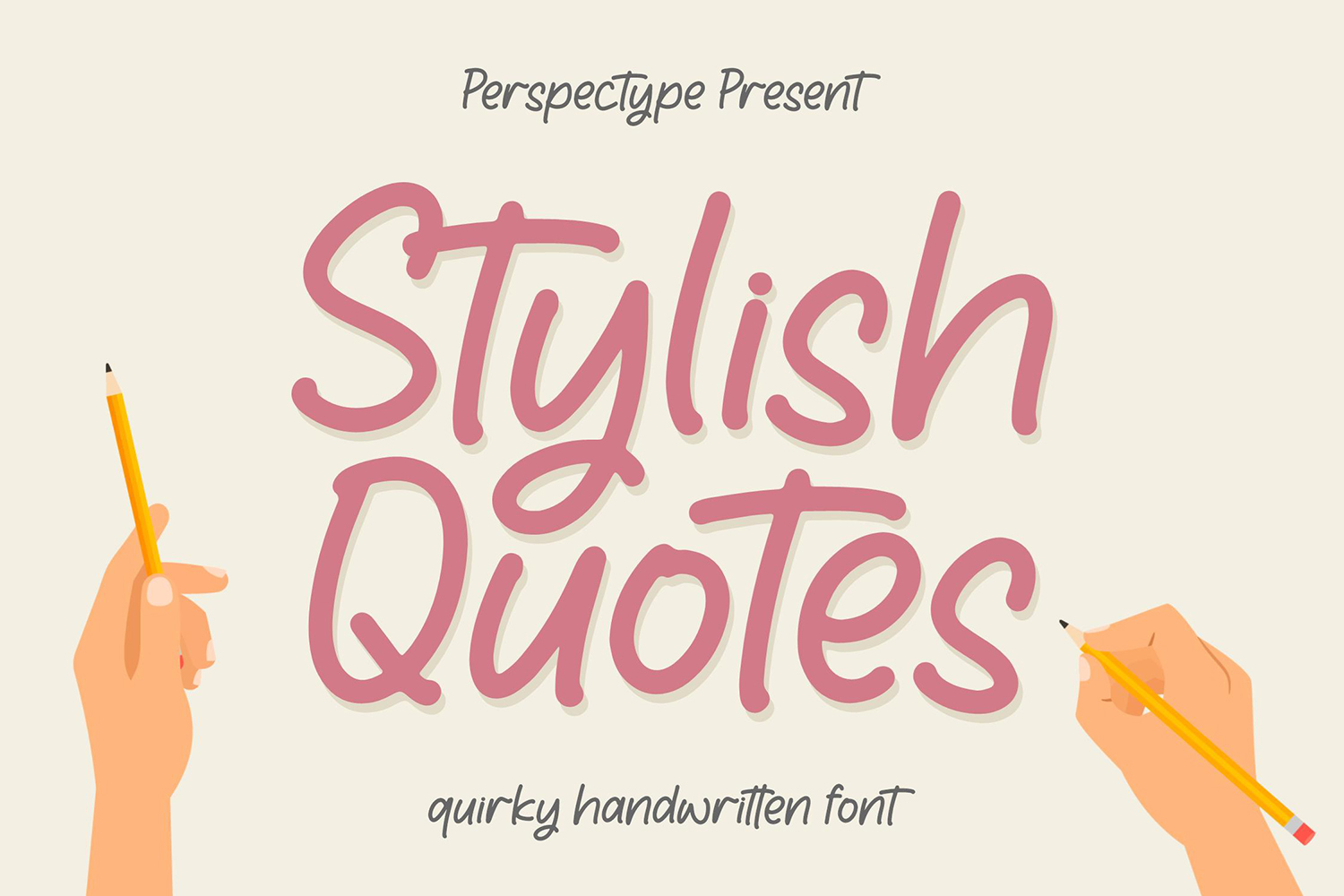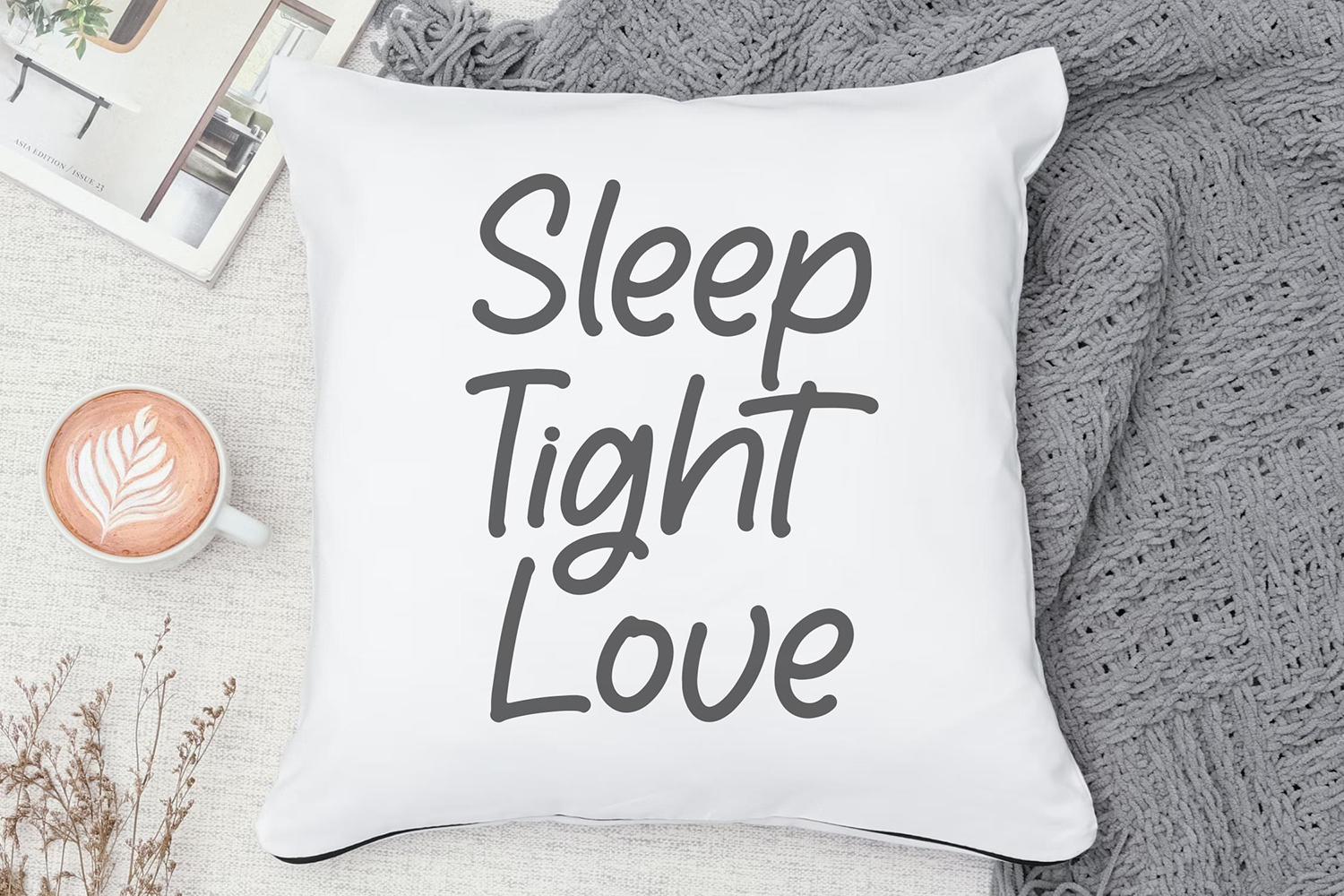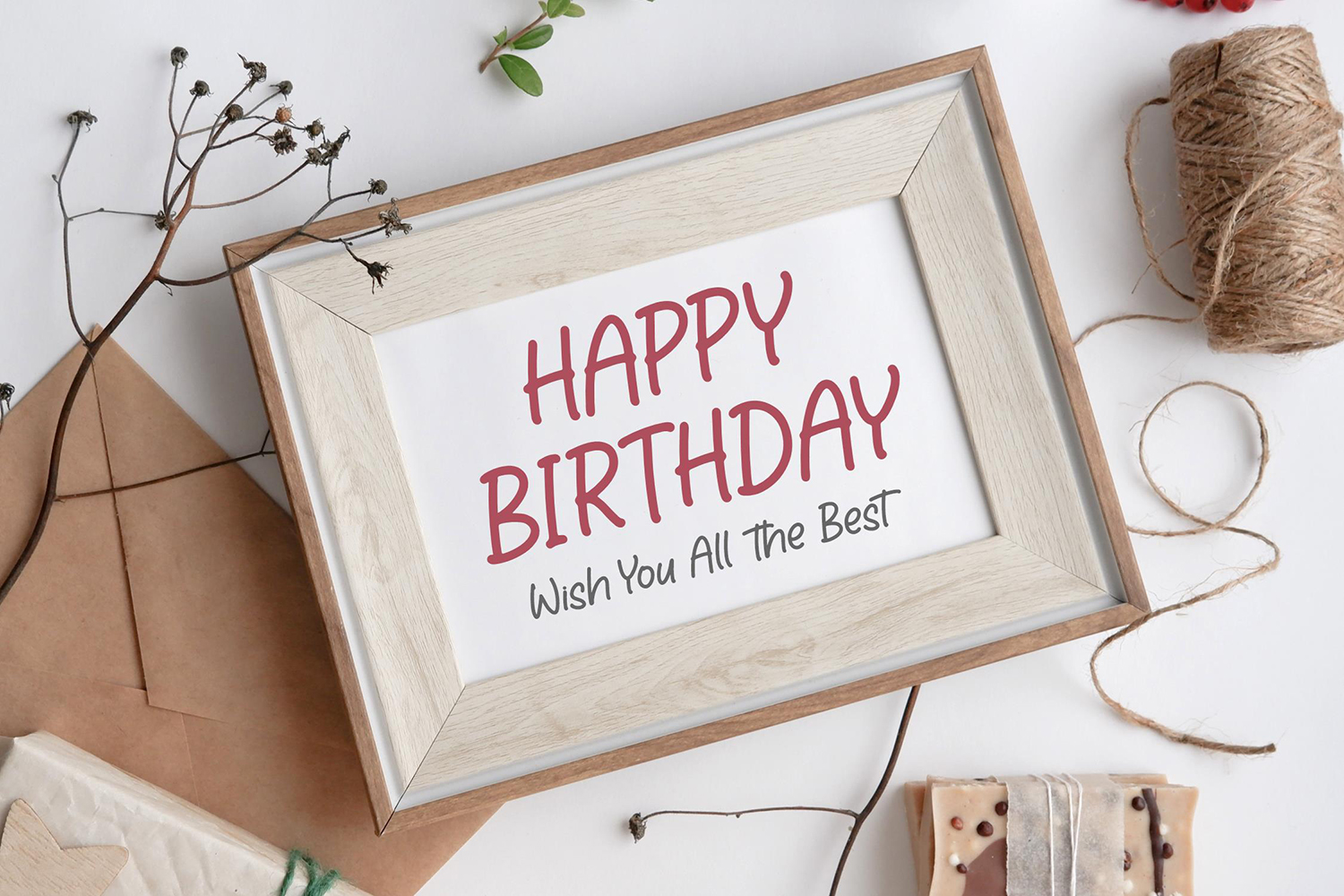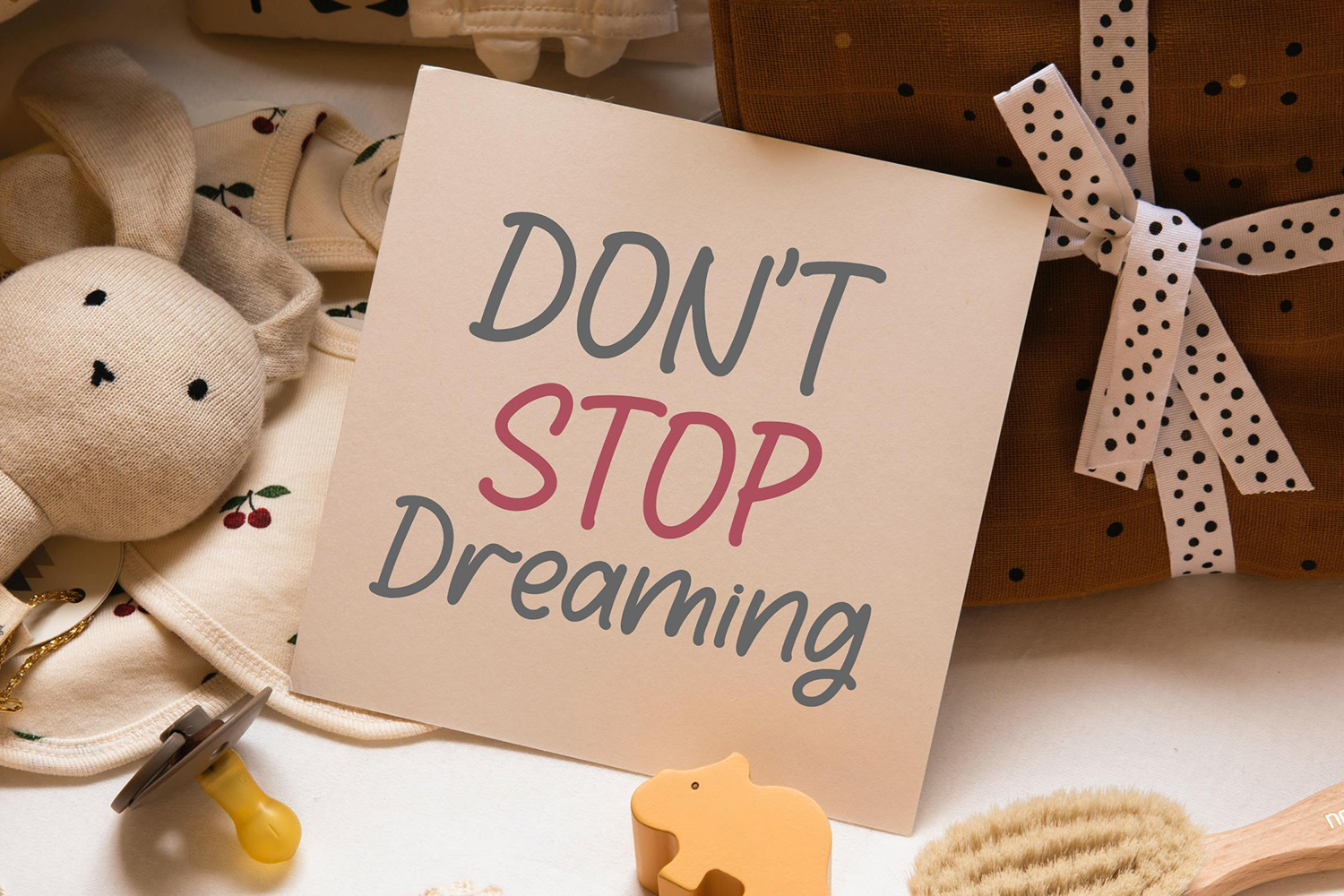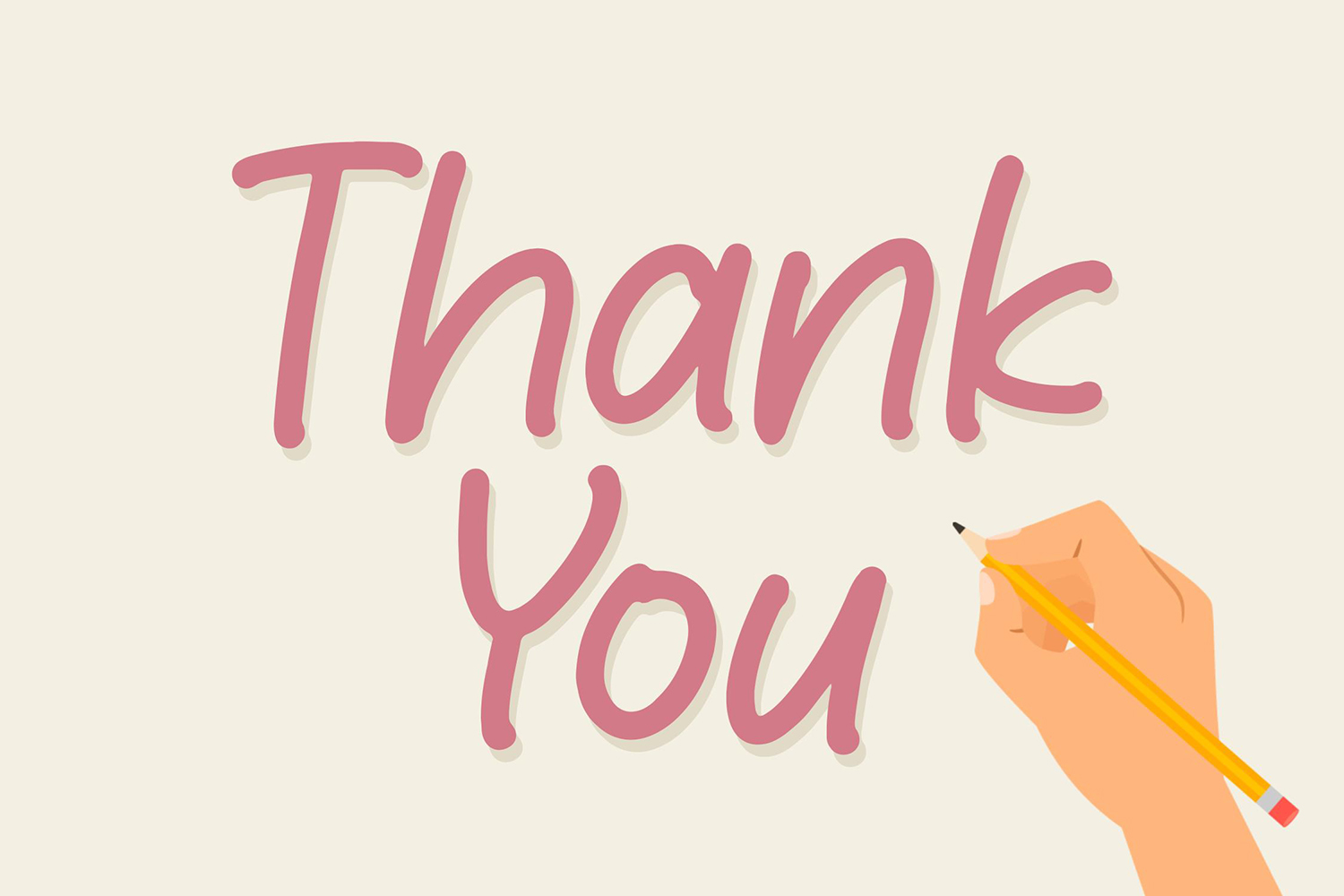
Stylish Quotes Free Font
Introducing the Stylish Quotes Free Font – a unique and quirky display font that will bring a touch of individuality and emotion to any project. With its handwritten style, each letter is imbued with a personal touch, adding a touch of warmth and character to your designs. Perfect for adding a touch of personality to quotes, logos, social media posts, and more, this font will make a statement every time it’s used. So bring a touch of the human spirit to your designs with Stylish Quotes Free Font.